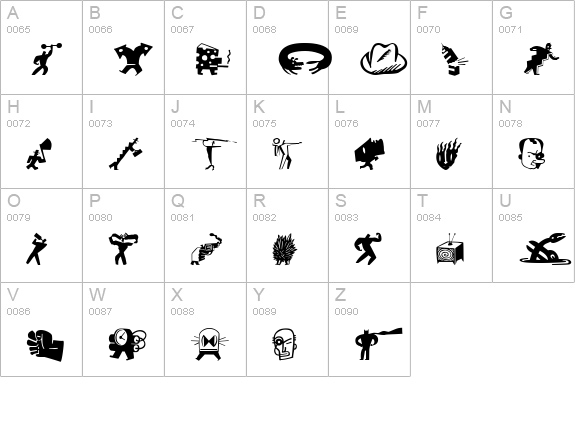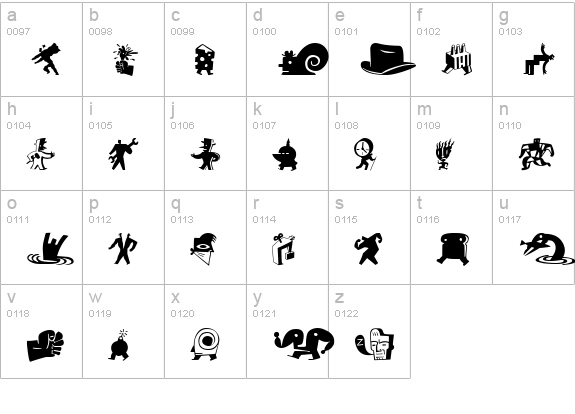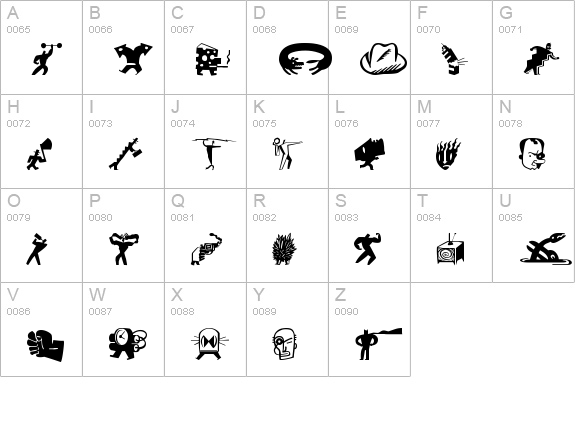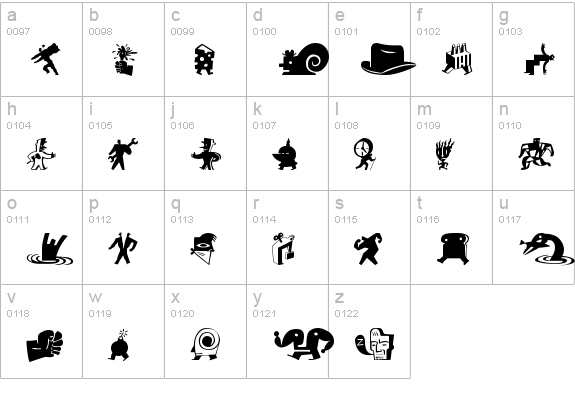
BigCheeseDark Regular Font Details
BigCheeseDark Regular is the standard, neutral variant in the BigCheeseDark typeface family \xE2\x80\x94 well suited to general body text, paragraphs, and standard typographic work.
BigCheeseDark Regular font is a stylish and modern typeface that exudes confidence and sophistication. With its bold and impactful design, this font is perfect for making a statement in your projects. Whether you're creating posters, logos, or branding materials, BigCheeseDark Regular font will add a touch of elegance and flair. What makes BigCheeseDark Regular font even more appealing is that it is completely free to download at FontsMarket.com. This means you can easily access this high-quality font without any cost, making it a valuable addition to your font collection. Don't miss out on the opportunity to enhance your designs with the striking BigCheeseDark Regular font, available for free download now.